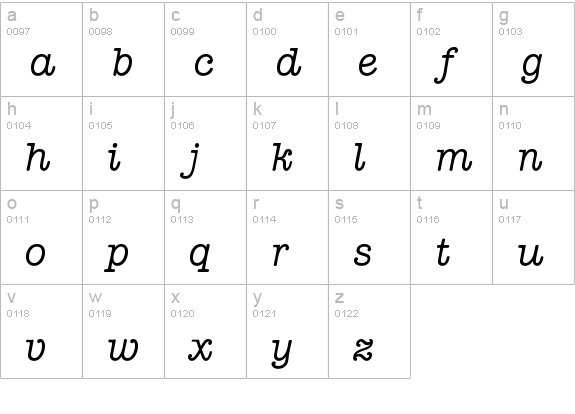
AmTypEFMedIta Font Details
AmTypEFMedIta is a unique and elegant font that combines traditional and modern design elements. Its sleek and stylish appearance makes it perfect for a wide range of design projects, from branding to editorial design. The font features a balanced mix of sharp angles and smooth curves, giving it a contemporary feel with a touch of sophistication. One of the standout features of AmTypEFMedIta is its versatility. Whether you're creating a sleek logo or designing a minimalist website, this font is sure to make a statement. Its medium italic weight adds a touch of flair without being too overpowering, making it suitable for both headlines and body text. What's even better is that AmTypEFMedIta is available for free download at FontsMarket.com. This means you can start using this stylish font in your projects right away, without having to worry about breaking the bank. Don't miss out on the opportunity to enhance your designs with this sleek and modern typeface!